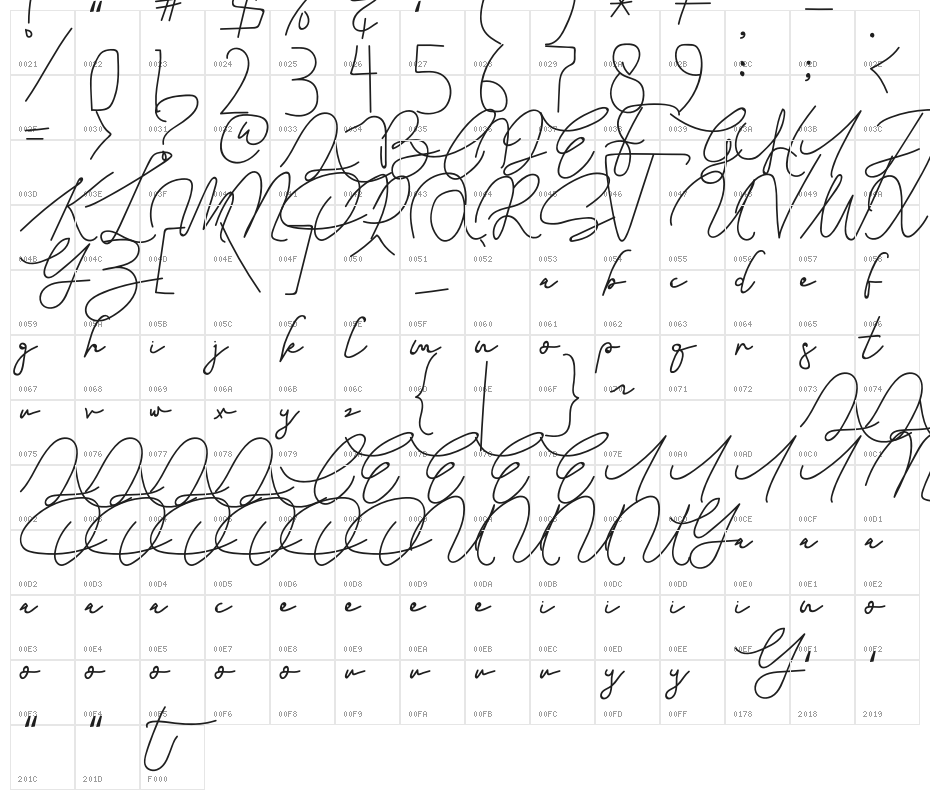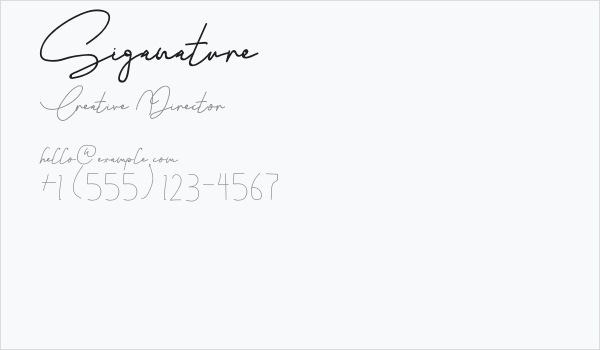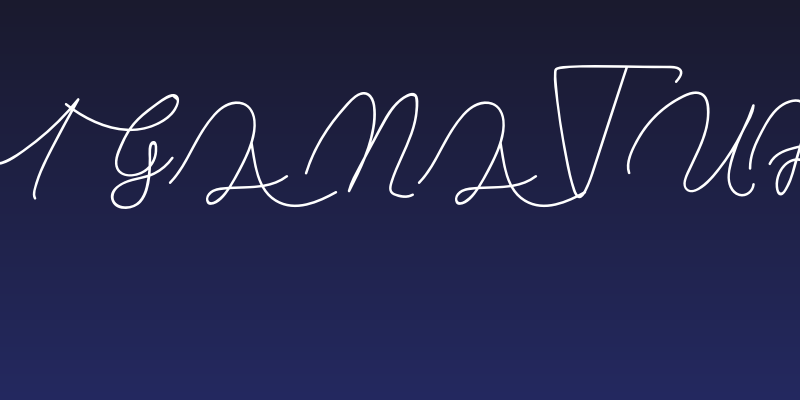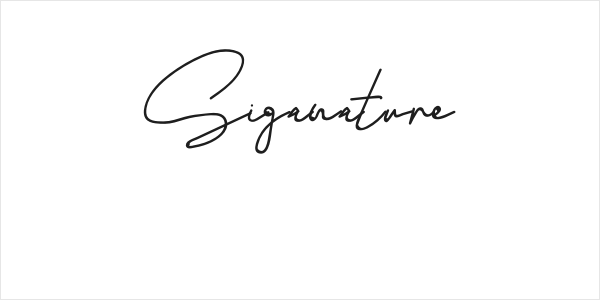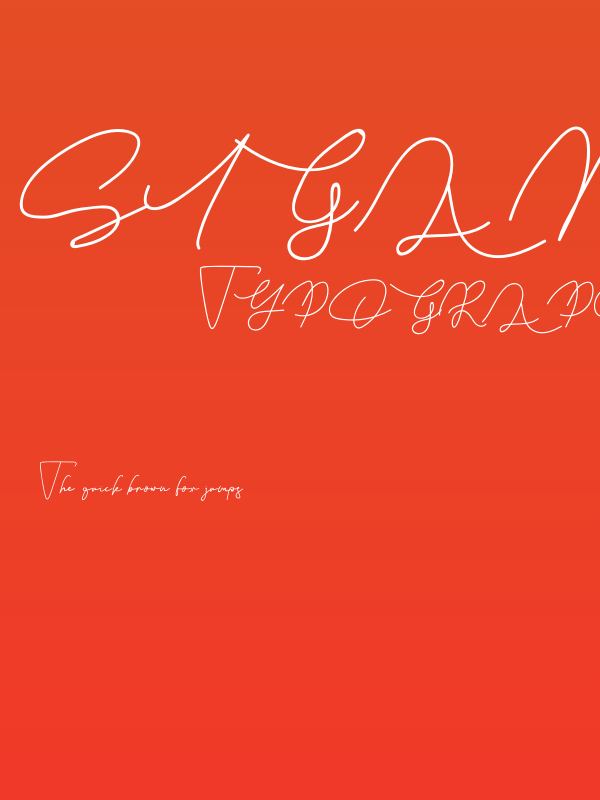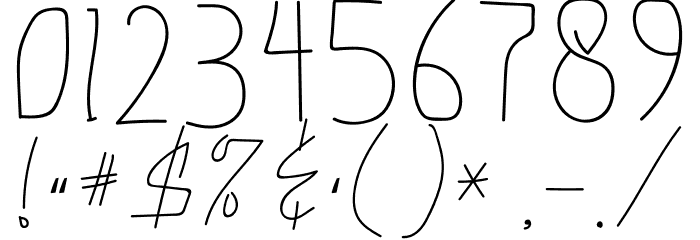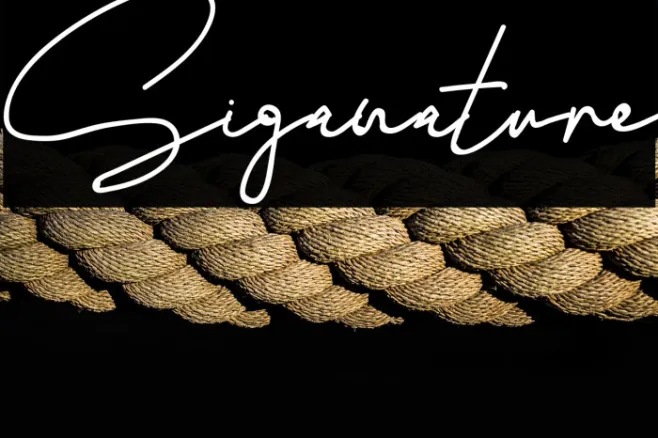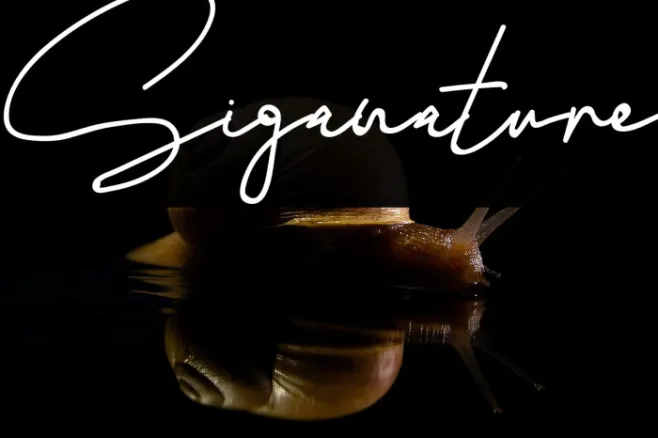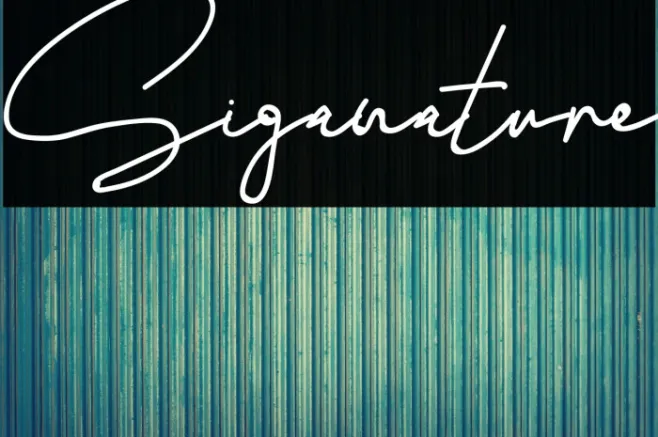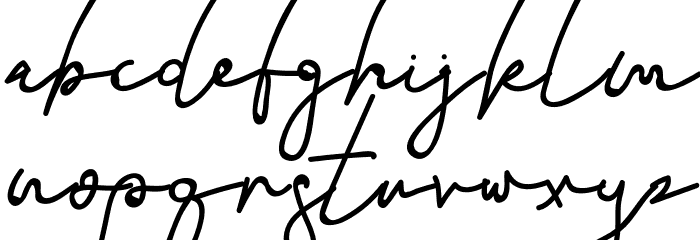
Siganature Font
Siganature Description
This font features a fluid, cursive style that mimics the natural flow of handwriting. The uppercase letters are elegantly connected, while the lowercase letters maintain a consistent, smooth stroke. The numbers are slender and maintain the same handwritten aesthetic, adding a personal touch to any design. Special characters are seamlessly integrated, enhancing the font's versatility. The overall appearance is both sophisticated and approachable, making it suitable for a variety of creative projects.